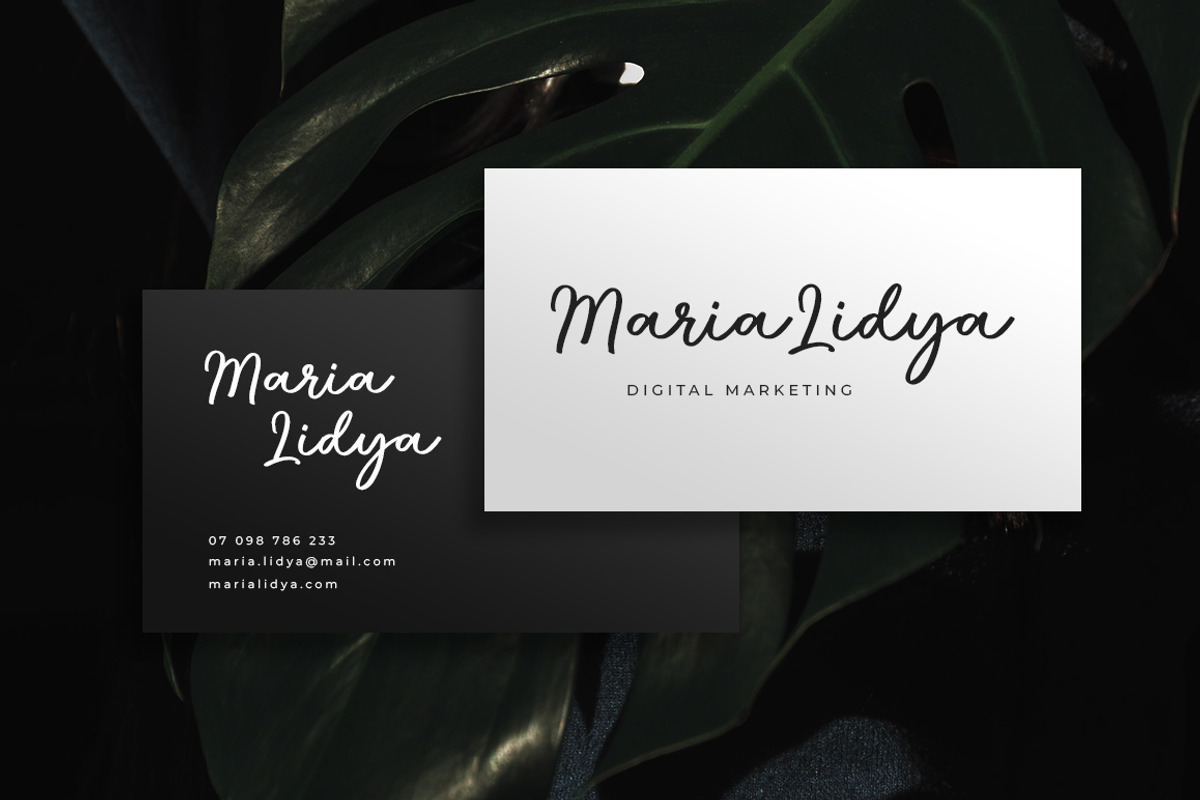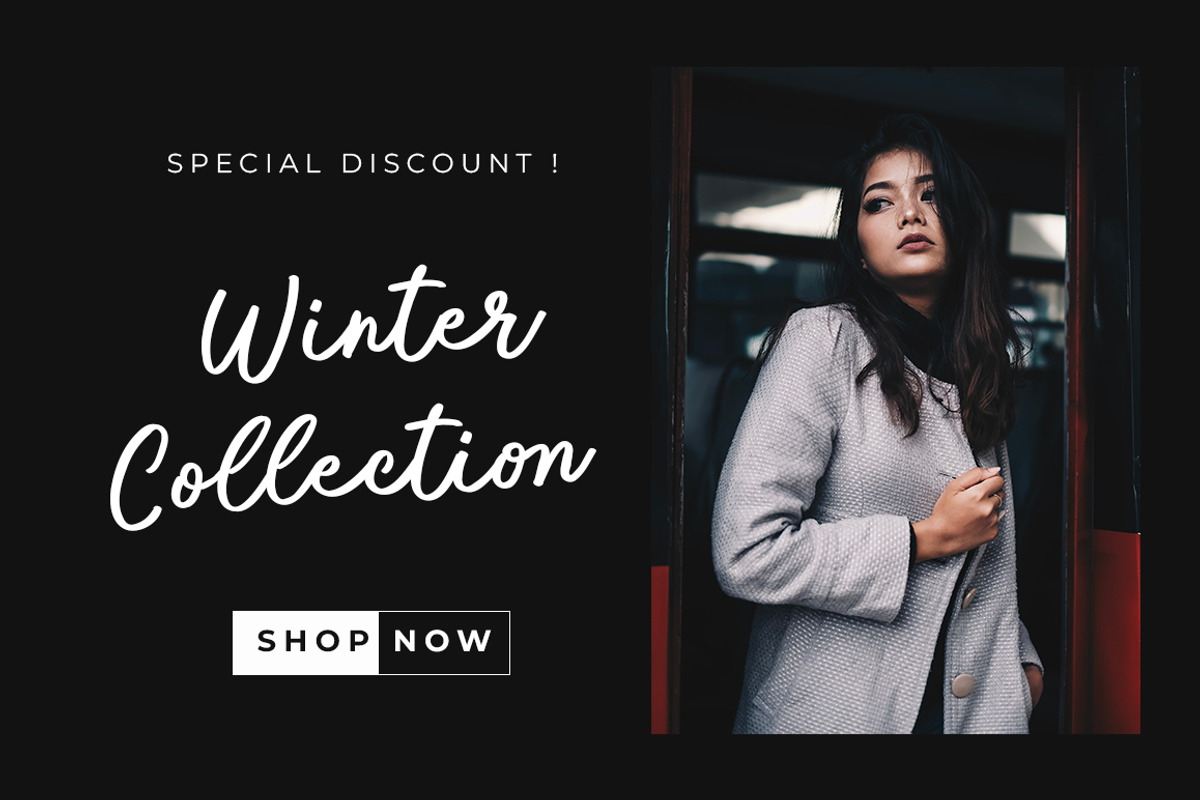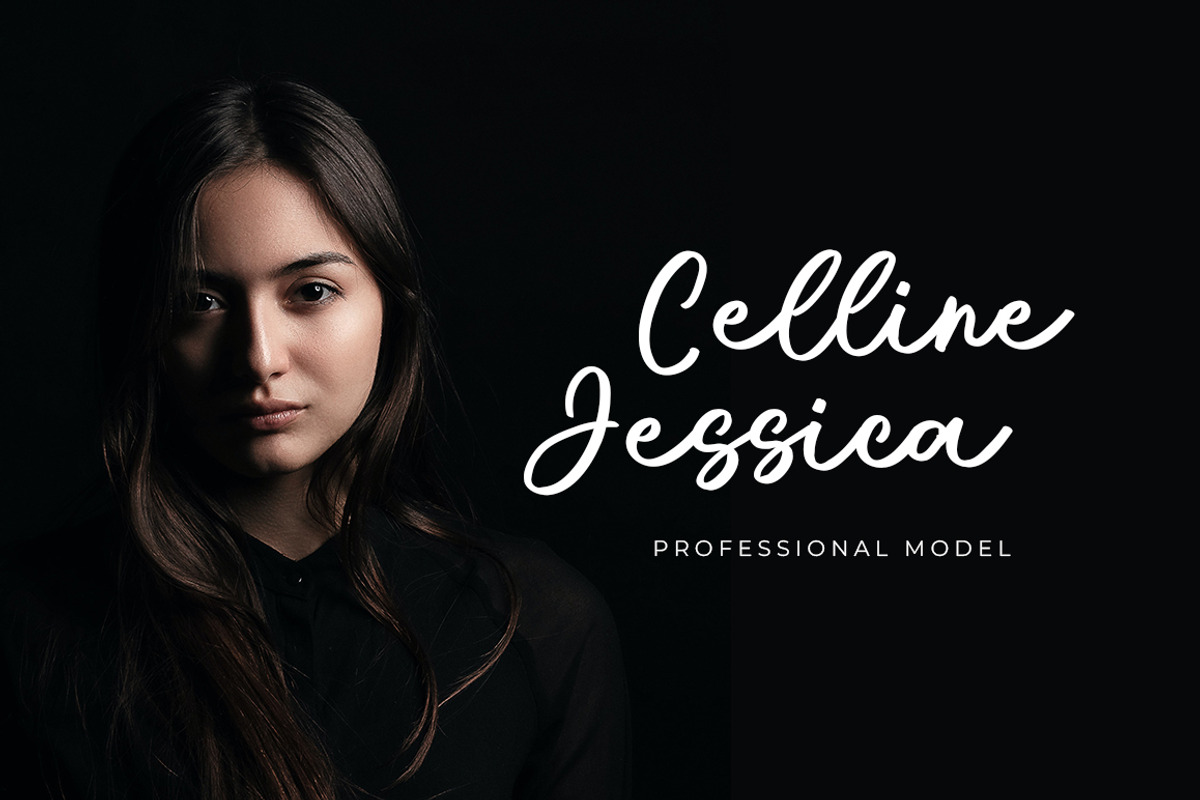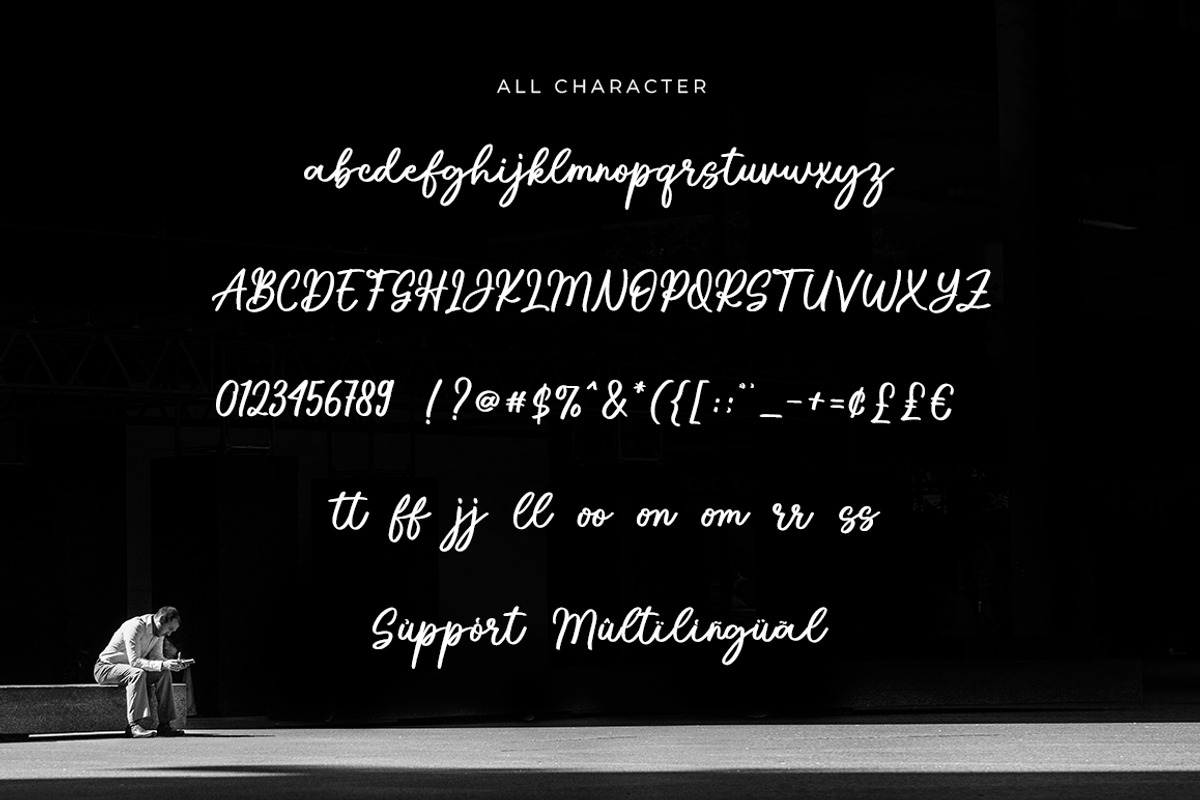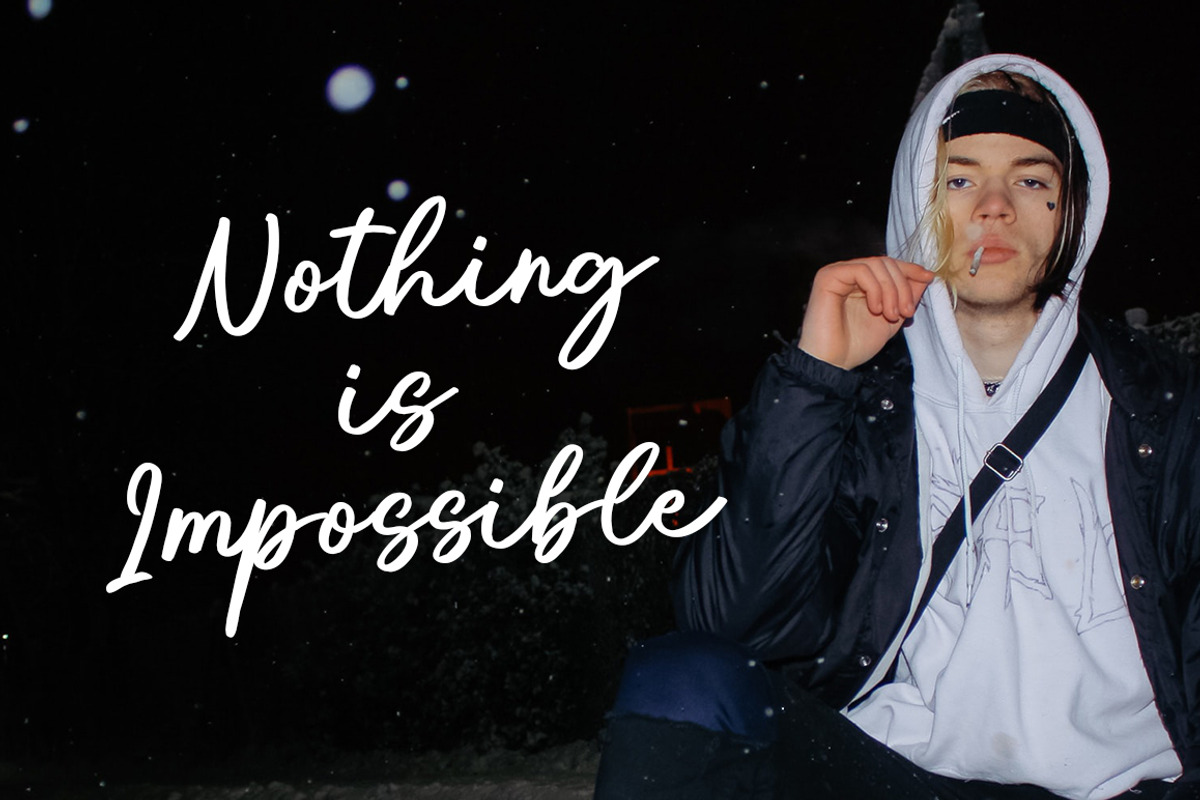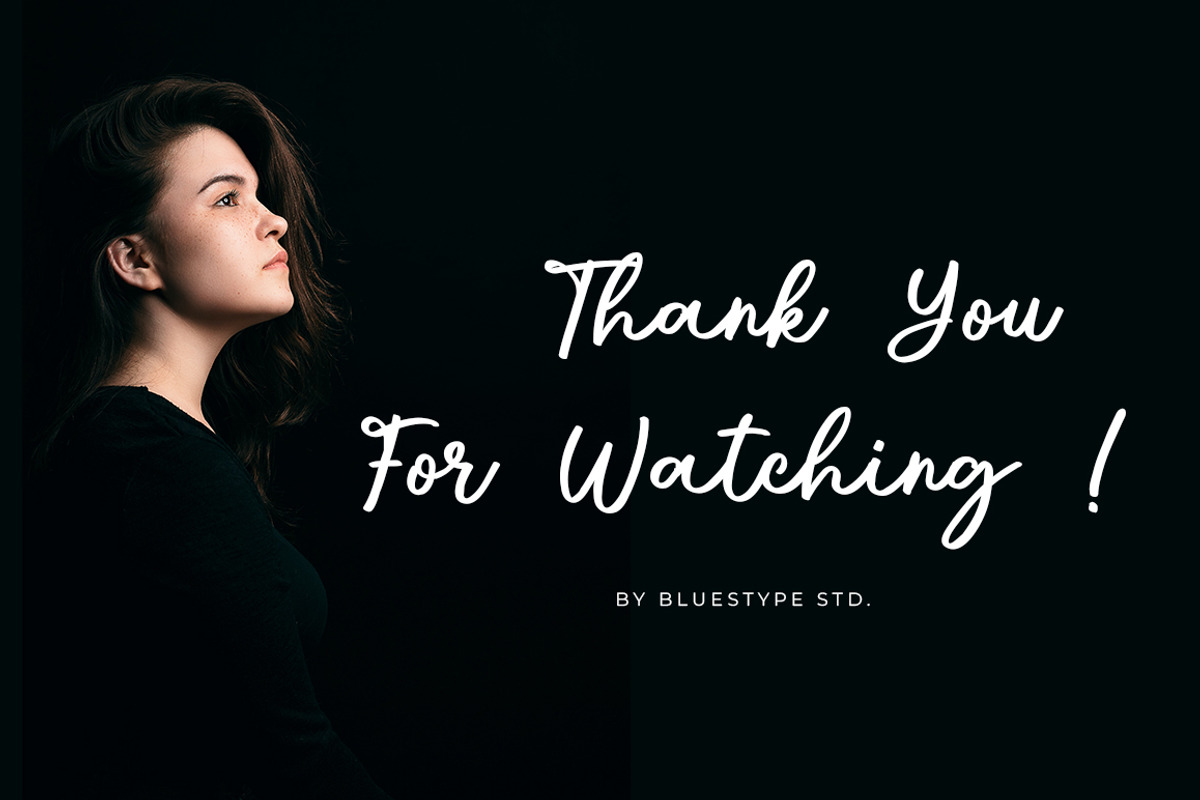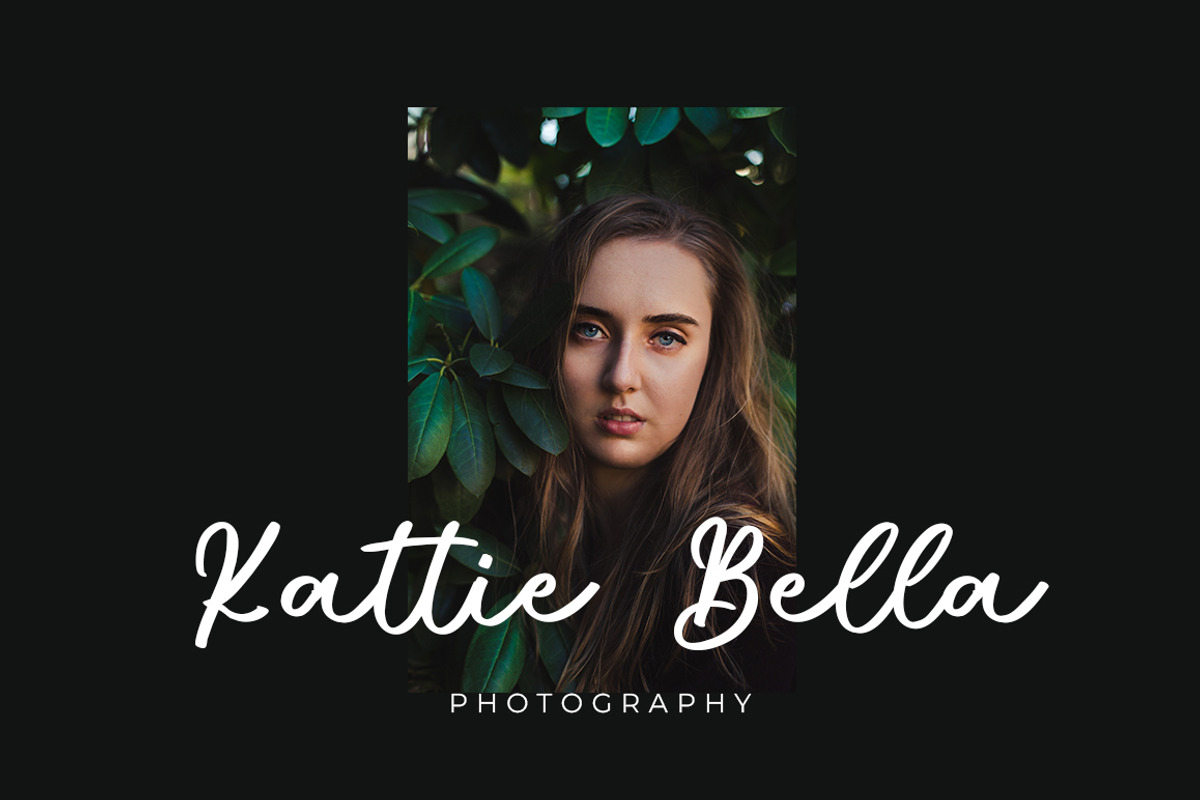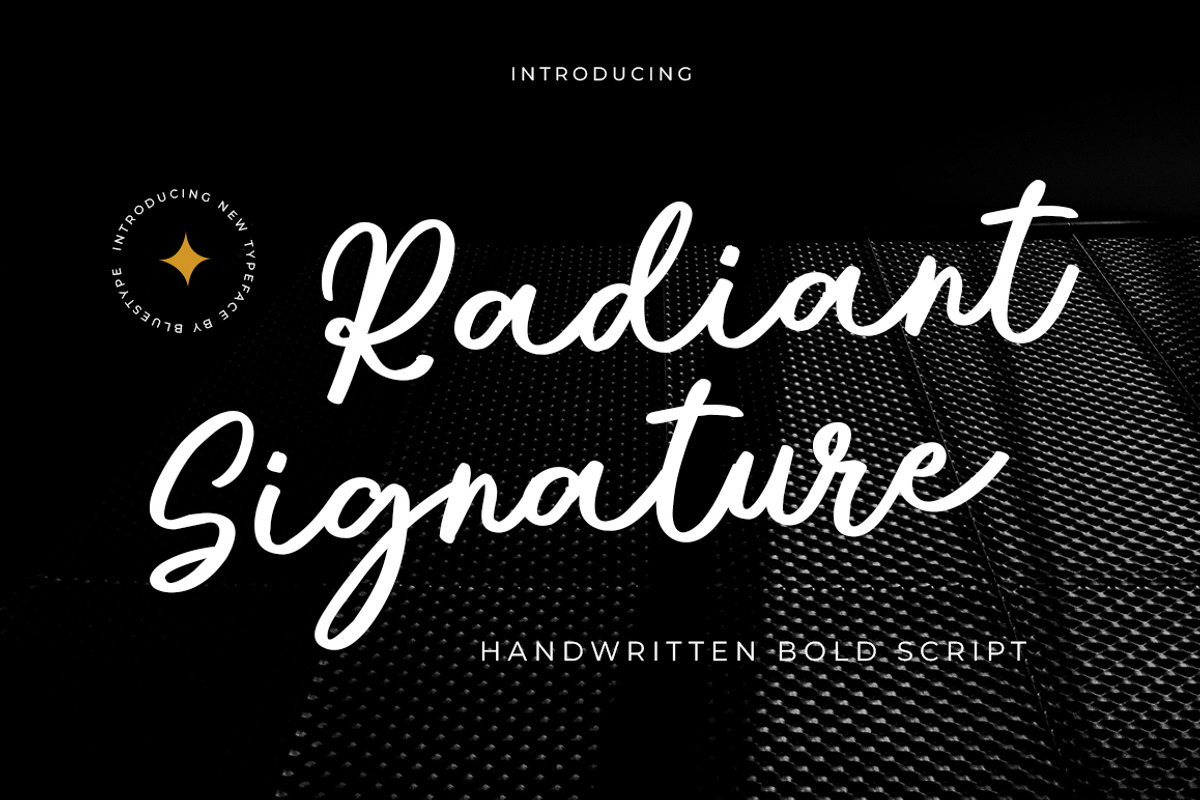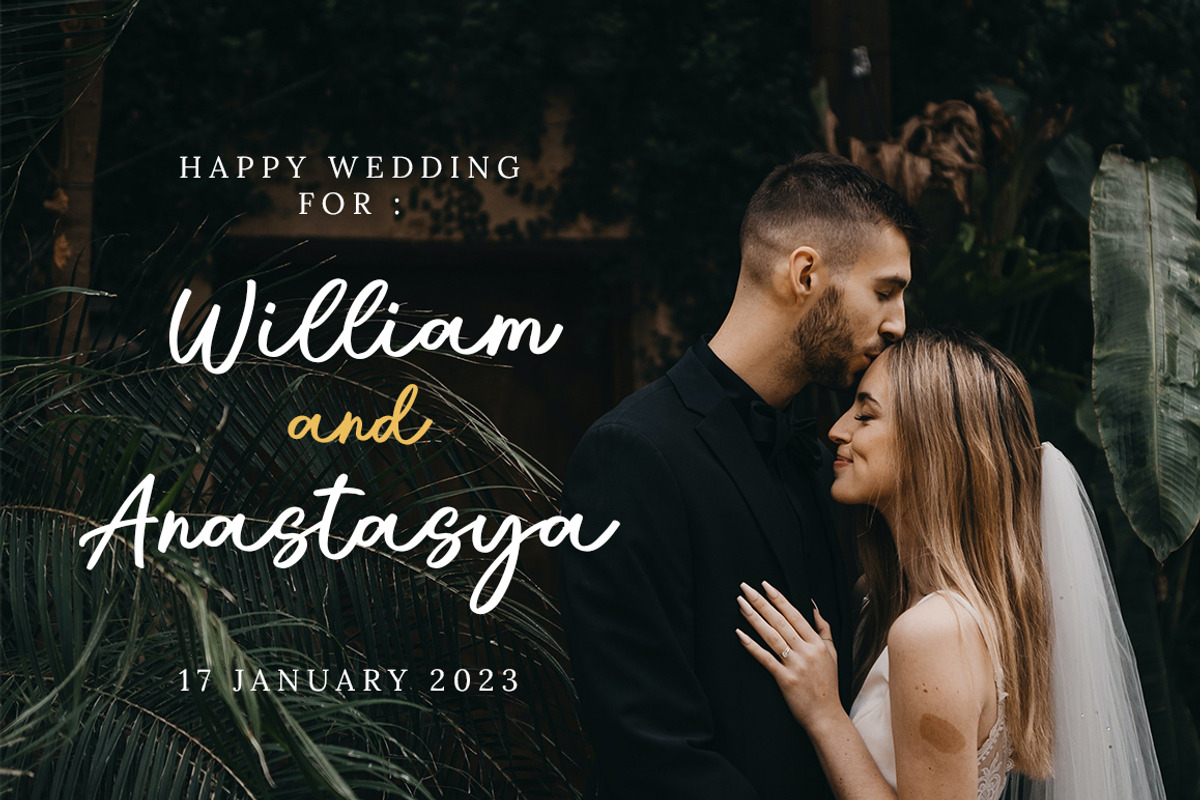
Radiant Signature - Handwritten Font
Hello ! This is our newest product font called Radiant Signature. Radiant Signature is a stunning script with a bold vibe. Get inspired by its cool feel.
This font is suitable for use on photography, business cards, weddings, t-shirt designs, logos, magazines, quotes, fashion, watermarks, invitations, signatures.
- Number & Punctuation
- Support Multilingual